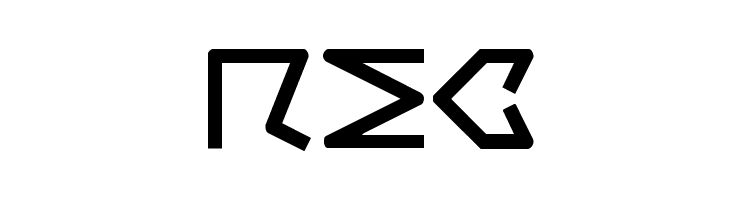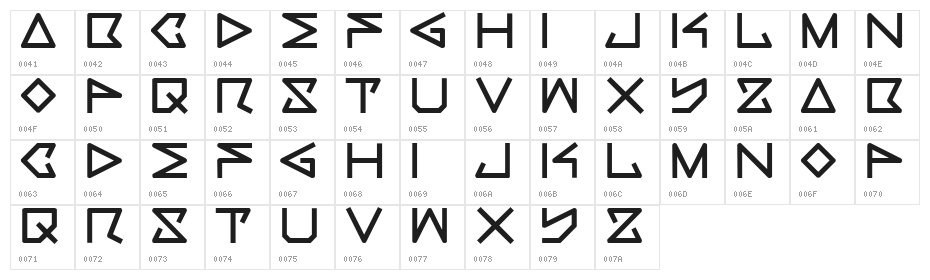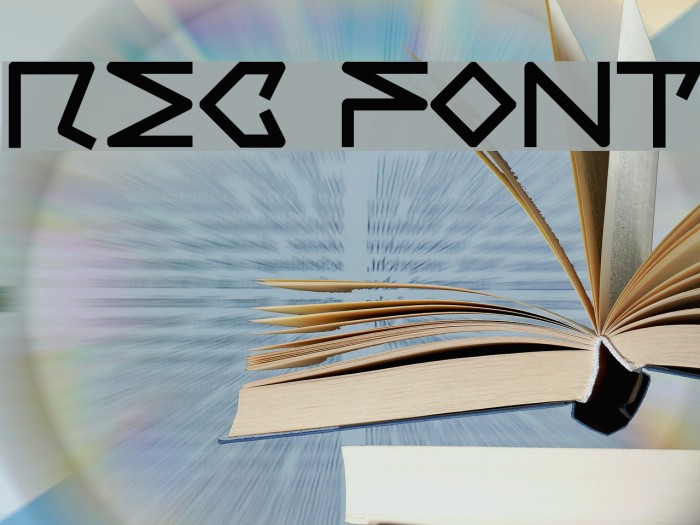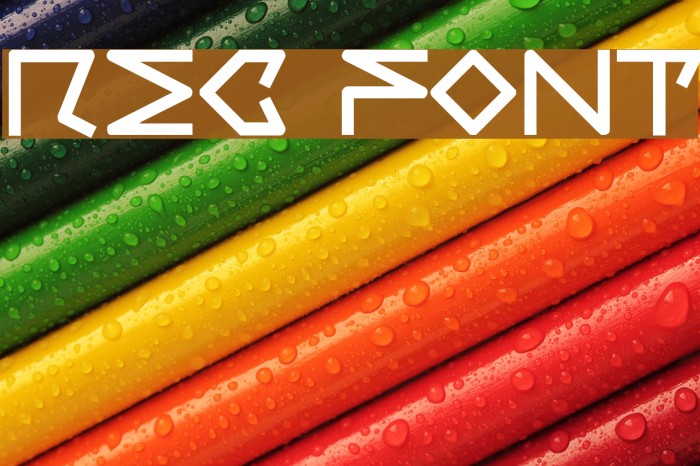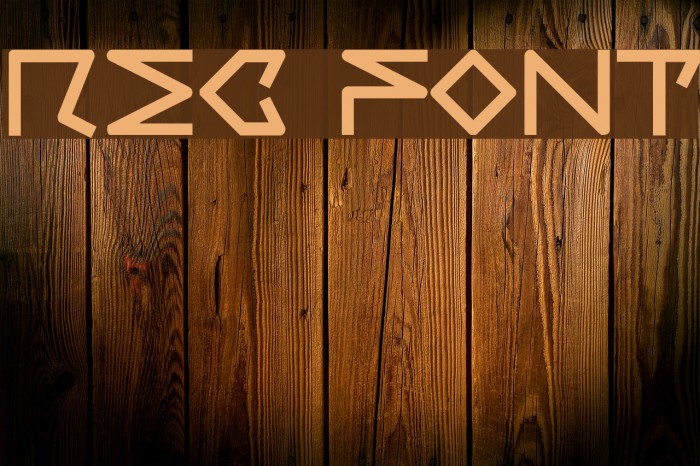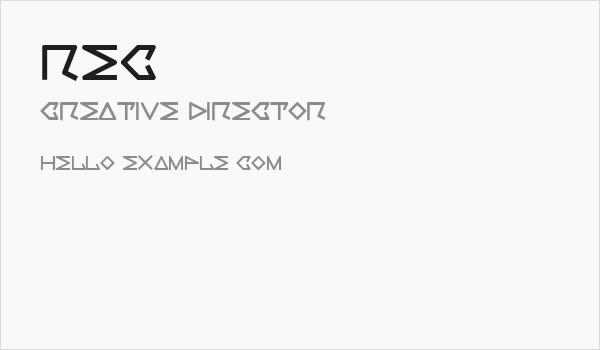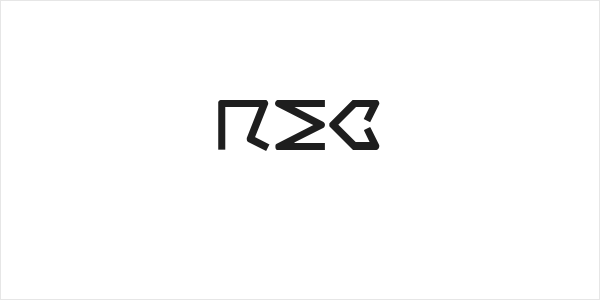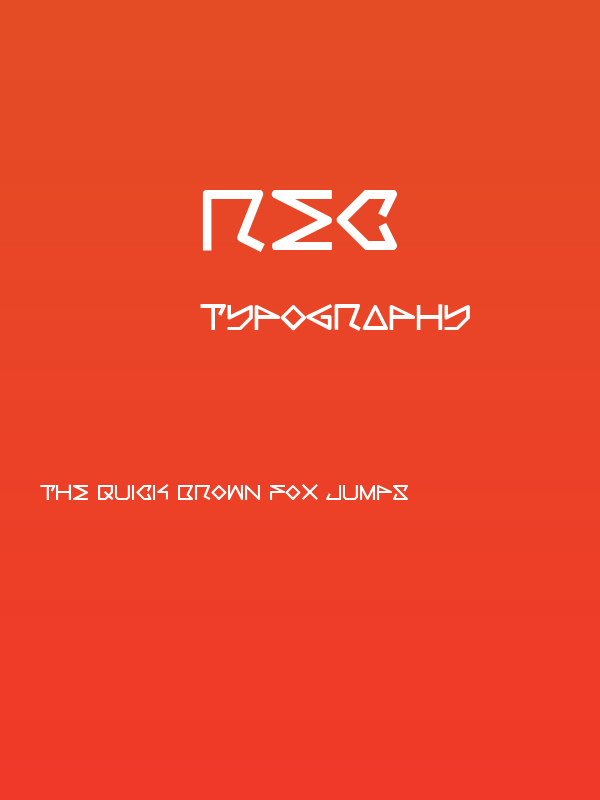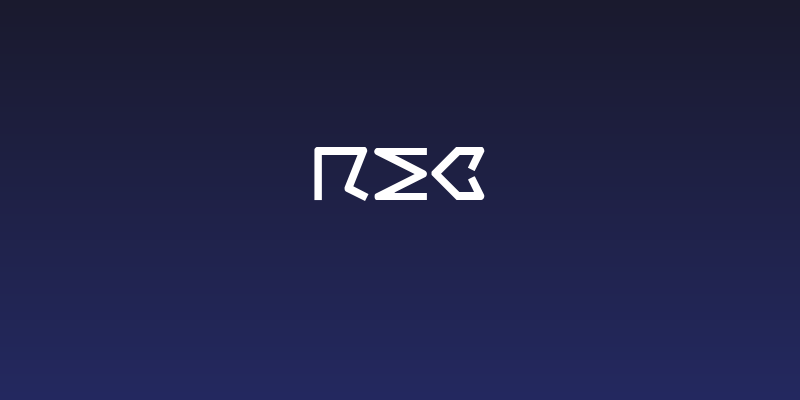
rec Font
rec Description
This font features a unique geometric design with sharp angles and a futuristic aesthetic. Each character is crafted with precision, using straight lines and triangular shapes that create a sense of movement and modernity. The uppercase letters are particularly striking, with a bold presence that commands attention. The lowercase letters maintain the same angular style, ensuring consistency throughout the typeface. The numbers and special characters are equally distinctive, making this font versatile for various applications. Its design is reminiscent of digital or sci-fi themes, making it ideal for projects that require a modern and edgy look.
| Proposed Projects | Ideal for sci-fi themed designs, technology branding, video game titles, and futuristic posters. |